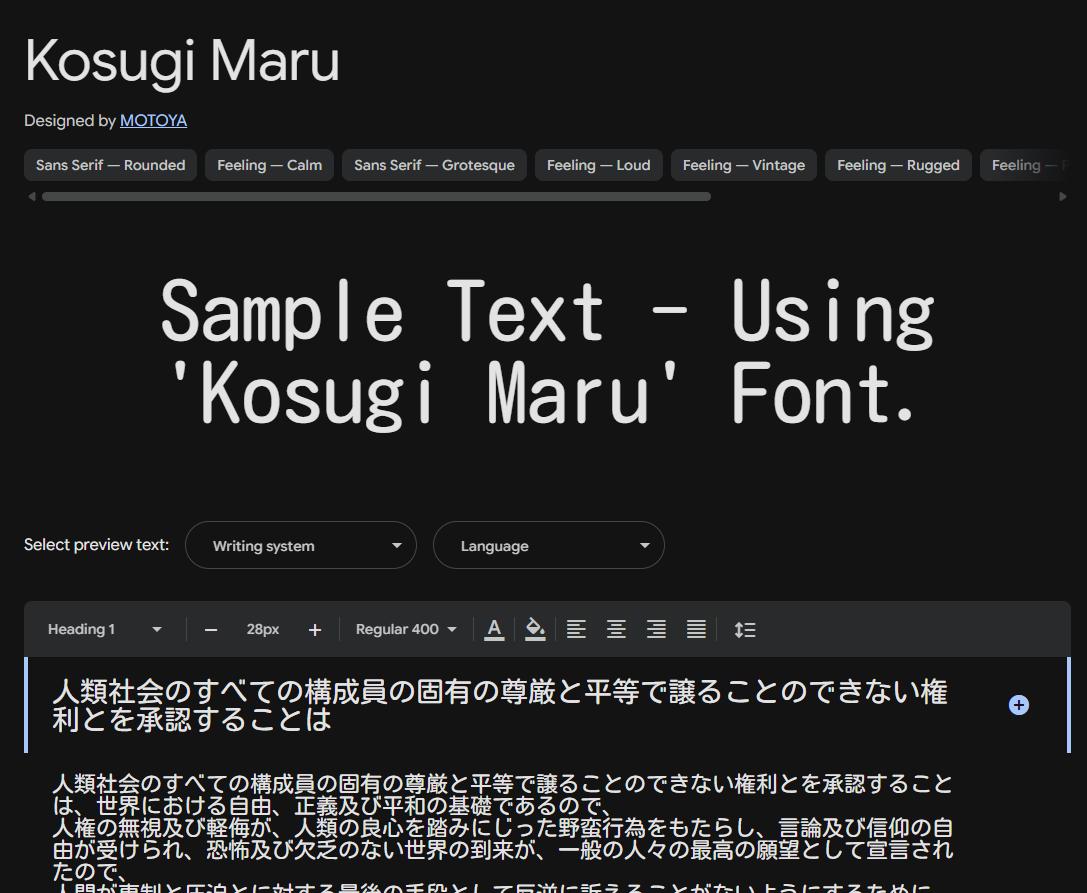
Kosugi Maru, a singular-style rounded Gothic typeface engineered by the historic Motoya foundry, represents a masterclass in digital legibility through its meticulously balanced stroke terminals and optical sizing optimizations. Originally refined for high-density screen displays within mobile operating systems, this CJK-compliant font utilizes a uniform weight distribution that avoids the stroke-collision issues common in more complex kanji structures at small scales. By prioritizing a "Maru" geometry-characterized by soft, circular endings-Motoya bypasses the harsh aliasing of traditional square-ended fonts, ensuring that its solitary weight maintains a high degree of semantic clarity and accessibility across diverse rendering engines.
Kosugi Maru serves as a masterclass in versatile Japanese typography, expertly navigating the duality between the utilitarian precision of a sans serif grotesque and the approachable softness of its rounded terminals. By leveraging a balanced stroke weight that emanates a feeling of calm, this typeface adapts fluidly across a spectrum of intent: it can project a loud, rugged authority in display applications or pivot toward a vintage aesthetic that captures the warmth of mid-century signage. Its low-contrast design and generous counters ensure optimal legibility for business-critical communications, yet the inherent friendliness of its curves allows for a playful, childlike accessibility that simultaneously feels sleek and futuristic. This unique structural harmony ensures that Kosugi Maru remains a semantically robust choice, bridging the gap between high-performance screen rendering and a deeply humanistic design philosophy.
Due to its inherent Maru Gothic DNA characterized by low-stroke contrast and generously rounded terminals, Kosugi Maru is fundamentally unsuitable for high-stakes legal documentation, institutional finance, or luxury brand identity where the semiotics of "gravitas" and "rigor" are paramount. The typeface's friendly, soft-edged optical profile lacks the sharp "uroko" (serif-like flourishes) and geometric precision required to command authority in contractual contexts, often leading to a perception of informality or "kawaii" aesthetic that diminishes the perceived reliability of a corporate entity. In the technical sphere of safety-critical industrial labeling, the lack of terminal sharpness can marginally impede instantaneous character recognition under high-stress conditions compared to high-contrast Mincho or aggressive square-Gothic alternatives, making this Motoya-designed face a poor choice for environments demanding maximum institutional formality or high-alert legibility.
Kosugi Maru is ideal for friendly, approachable, and modern aesthetics that require a balance between clarity and softness. Its low-stroke contrast and rounded terminals achieve a high kanji-to-kana visual harmony suitable for humanist UI design and lifestyle-oriented branding.
While highly legible, Kosugi Maru is better suited for medium-length passages and digital interfaces rather than dense, multi-page long-form content. The generous letter-spacing and simplified stroke geometry reduce cognitive load in digital environments, though the lack of multiple weights can limit hierarchical depth in complex typesetting.
Rounded sans-serif fonts like Varela Round or Quicksand complement its soft edges, while neutral fonts like Roboto provide a clean contrast. Matching the x-height and stroke weight of Kosugi Maru with geometric neo-grotesque faces ensures consistent optical grayness across bilingual Latin-Japanese compositions.
Yes, it is highly effective for mobile interfaces due to its high legibility and friendly persona that enhances the overall user experience. The font's open counters and consistent monolinear weight improve touch-target recognition and meet accessibility standards within compact mobile viewport dimensions.
The rounded terminals soften the visual impact of the text, making it feel more organic and less rigid than traditional square-ended Gothic typefaces. Technically, these rounded stroke endings minimize "dazzle" effects on backlit displays, maintaining character definition even at higher brightness levels or smaller point sizes.
Kosugi Maru functions well as a headline font for friendly or casual brands, though it lacks the extreme weight variations typically used for aggressive visual impact. Its lack of sharp edges reduces the typographic color intensity, making it more effective for soft-sell display marketing rather than high-contrast editorial headers.
This font is an excellent choice for children's materials because its clear, rounded forms mimic the approachability and warmth of hand-drawn characters. The simplified Kanji structures and uniform stroke widths align with pedagogical standards for early literacy by reducing visual complexity for developing readers.
It performs adequately in print, though its rounded nature requires careful attention to ink-spread at extremely small point sizes. In offset printing, the lack of sharp corners prevents the "filling in" effect at small apertures, preserving the critical internal whitespace of complex CJK glyphs.
The font maintains exceptional clarity on low-resolution screens because of its simple, unadorned structure and consistent stroke weight. Its design bypasses the need for complex hinting, as the rounded terminals and lack of serifs prevent pixel aliasing artifacts common in more intricate typefaces.
Kosugi Maru is a strong candidate for minimalist branding that prioritizes warmth, accessibility, and modern simplicity. The typeface's consistent geometric rhythm allows for a "quiet" visual identity, leveraging its neutral-yet-friendly personality to support brand-led white space strategies.